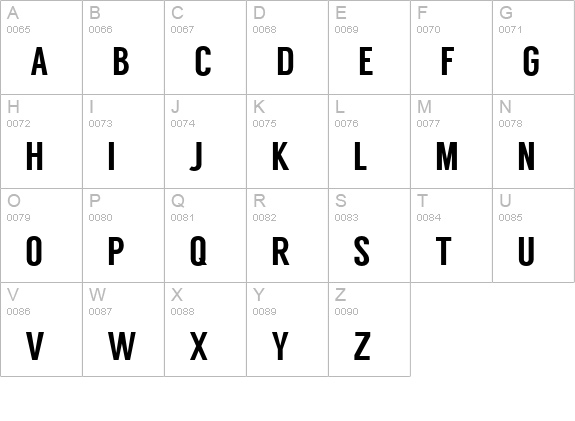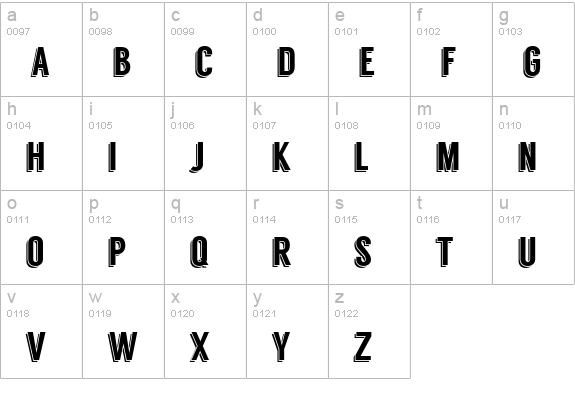
Introducing Langdon, a captivating and versatile font that effortlessly merges elegance with a touch of modernity. With its sleek lines and confident curves, Langdon captures attention and commands authority. This stunning typeface is perfect for branding, advertising, headlines, and any project that requires a striking visual impact. Langdon's unique design stands out with its tall and slender letterforms, exuding grace and sophistication. Its clean and balanced proportions make it easy to read, ensuring legibility even at smaller sizes. Whether used in print or digital media, Langdon adapts seamlessly to any context, adding a touch of class to your creations. One of the most remarkable features of Langdon is that it is freely available to download at FontsMarket.com. This means that you can access this extraordinary font without any hassle, allowing you to explore its limitless possibilities and unleash your creativity. Now, you can elevate your designs without breaking the bank, as Langdon offers a premium aesthetic free of charge. Experience the versatility and beauty of Langdon as you effortlessly create eye-catching logos, captivating headlines, elegant invitations, and so much more. Its broad range of weights and styles provides endless options, allowing you to truly make your designs stand out from the crowd. Don't miss out on the opportunity to elevate your typography game with Langdon. Download this stunning font for free at FontsMarket.com and let your creativity soar to new heights.